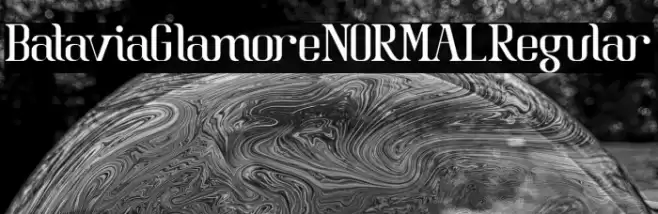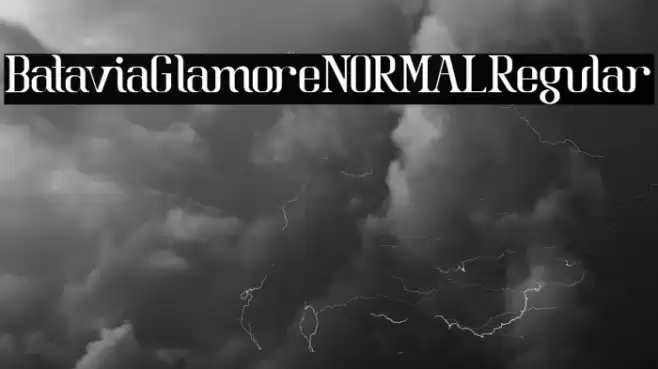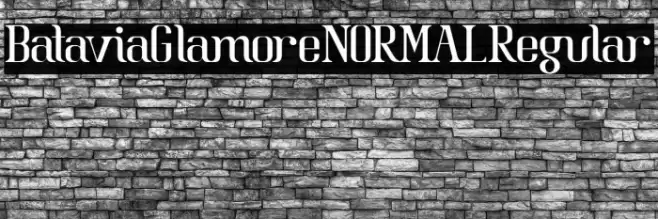
BataviaGlamoreNORMAL-Regular Font
BataviaGlamoreNORMAL-Regular Description
This font features a distinctive blend of modern and vintage aesthetics, characterized by its bold and elongated letterforms. The uppercase letters exhibit a strong presence with sharp serifs and a high contrast between thick and thin strokes, giving it an elegant yet assertive look. The lowercase letters maintain a cohesive style with smooth curves and a slightly condensed appearance, enhancing readability. The numerals are consistent with the overall design, offering a harmonious balance between the characters. Special characters are thoughtfully designed to match the font's unique style, making it versatile for various applications.
A bold, high-contrast serif font with a modern vintage flair from Regular fonts.
- Proposed Projects: Ideal for branding, editorial design, and luxury packaging, this font can also be used effectively in headlines and logo design.
- Overall Style: Modern Vintage
- Use Case: Headlines, Logos, Editorial Design